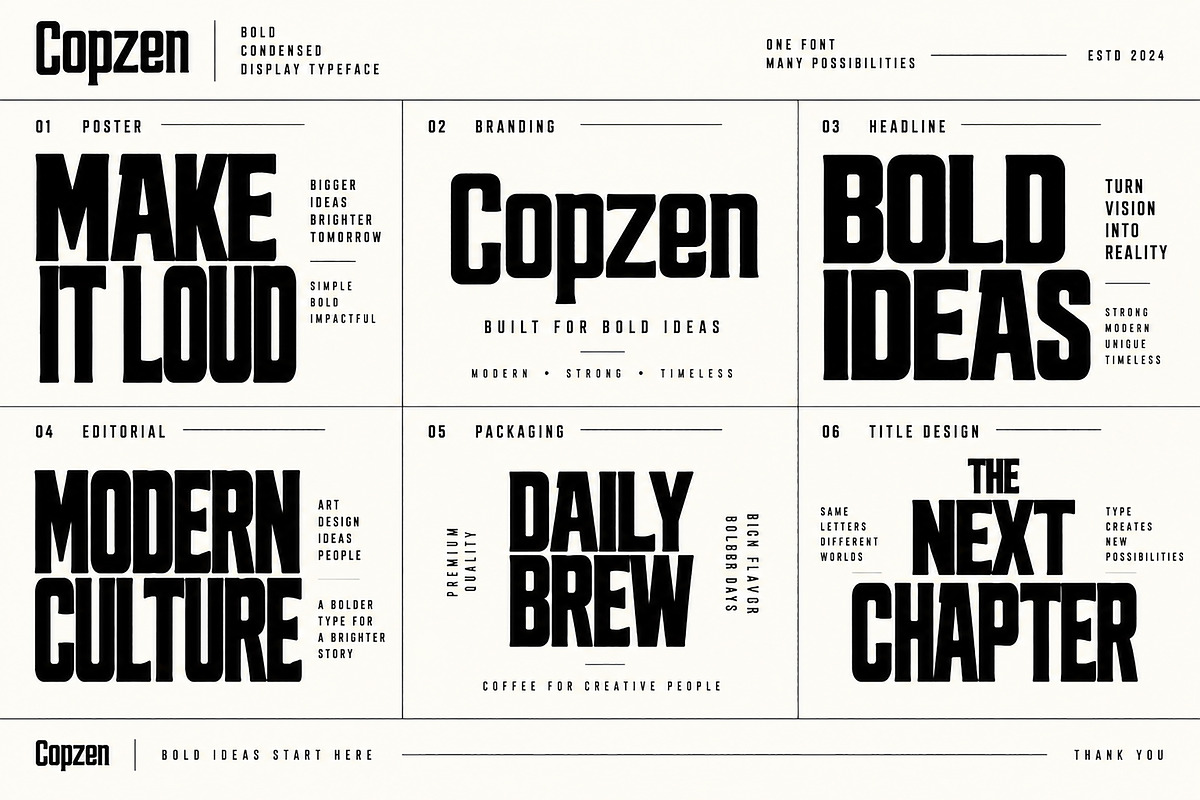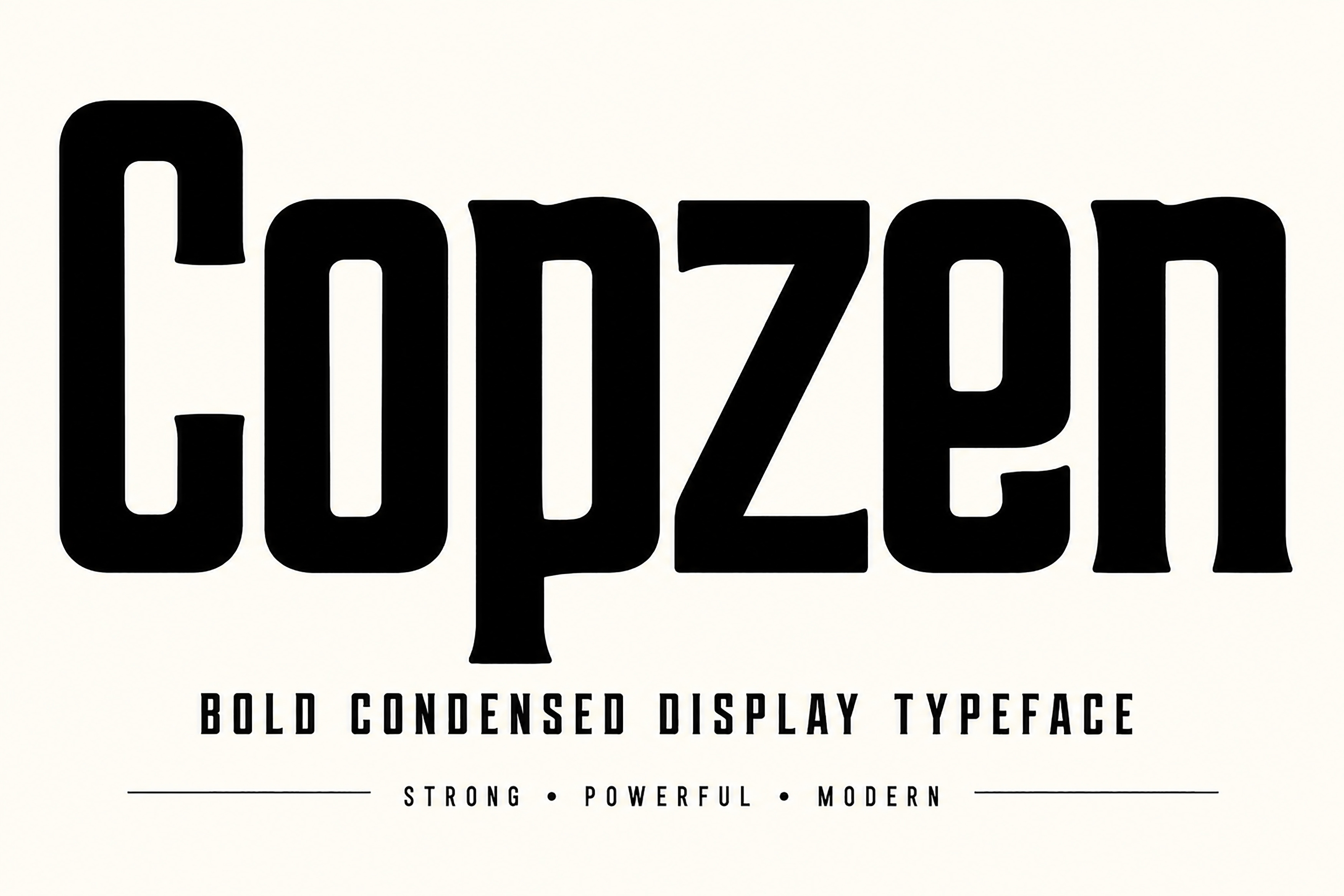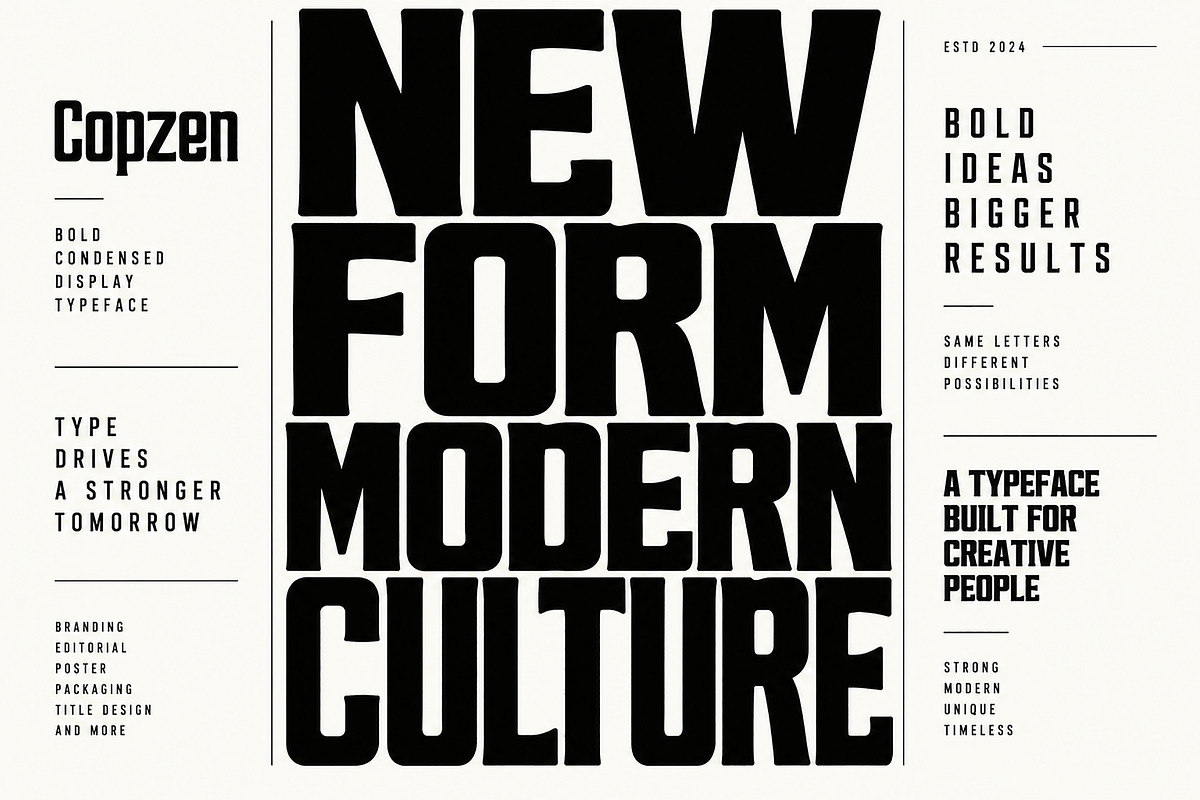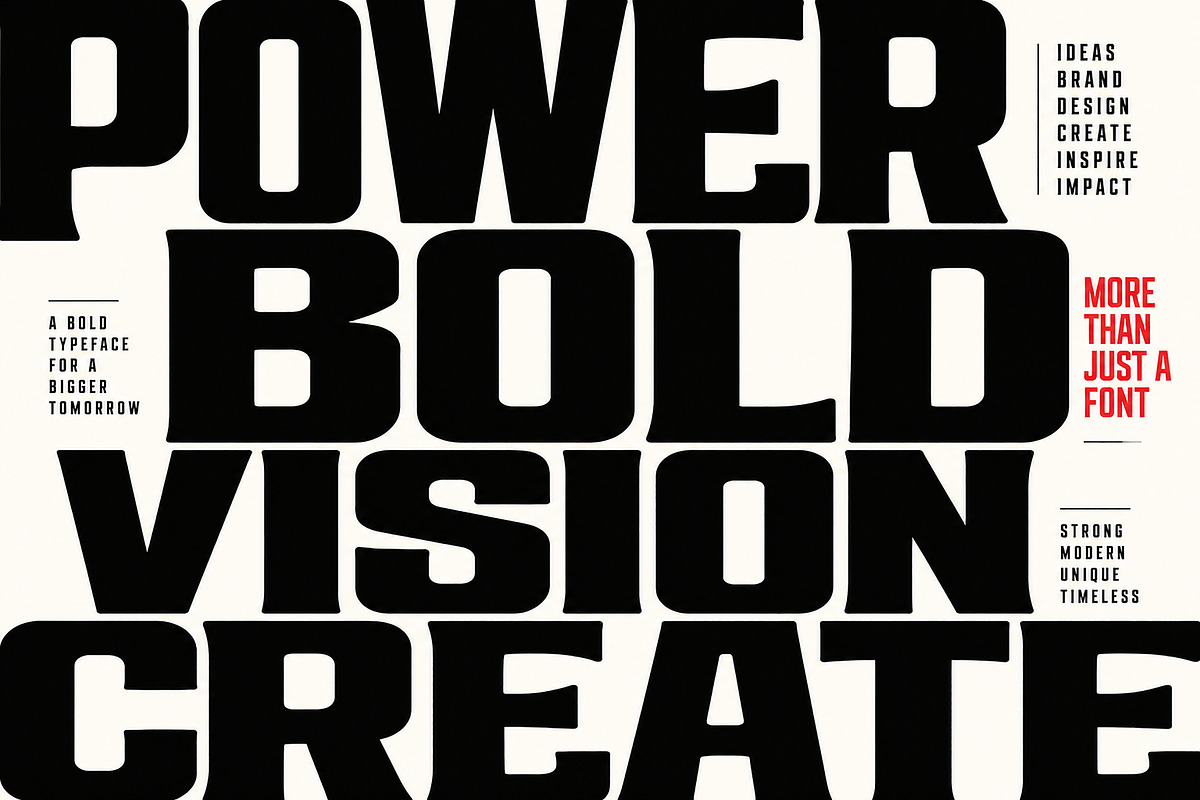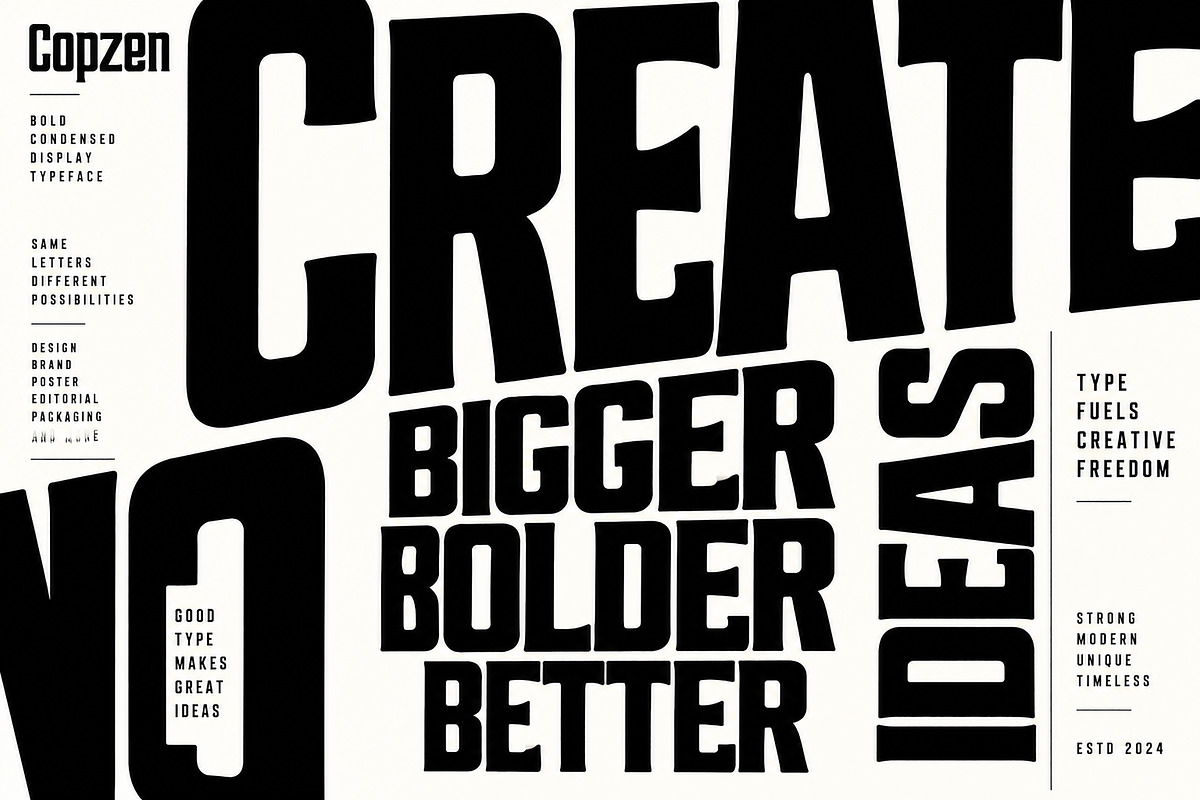
COPZEN — Bold Condensed Display Font
Copzen is a bold condensed display typeface designed to make a powerful visual statement. With its strong presence, compact proportions, and distinctive letterforms, Copzen is ideal for projects that need bold, confident, and attention-grabbing typography.
Its heavy condensed style works beautifully for posters, headlines, branding, editorial designs, packaging, titles, promotional graphics, social media designs, and other creative projects where typography needs to stand out.
Copzen is designed with a strong modern character while maintaining a clean and impactful appearance, making it a versatile choice for both large display text and creative typographic compositions.
Poster Design
Branding & Identity
Headlines
Editorial Design
Title Design
Advertising
Promotional Graphics
Social Media Designs
Typography Posters
Creative Layouts
Logo & Wordmark Concepts
Print Design
Digital Design
Copzen is a great choice for designers looking for a bold, condensed, modern, and powerful display font that instantly grabs attention.
Make your headlines louder. Make your designs bolder. Make an impact with Copzen.